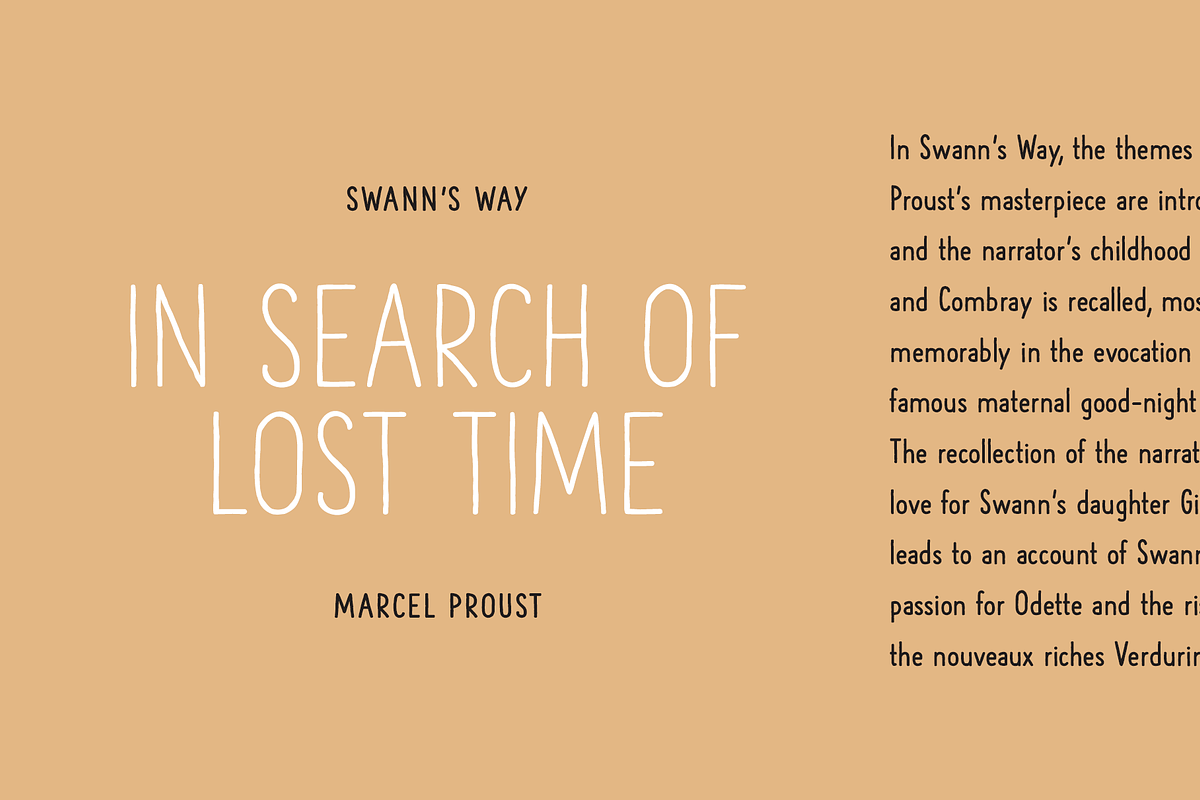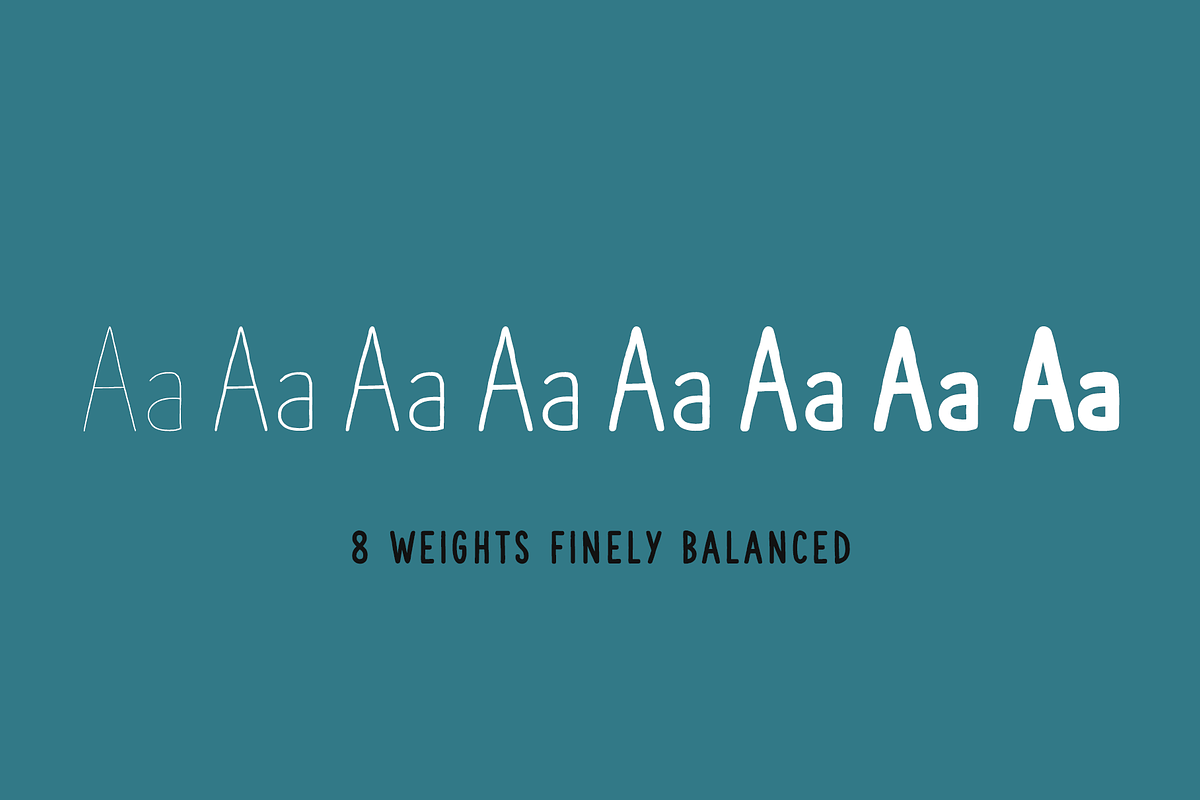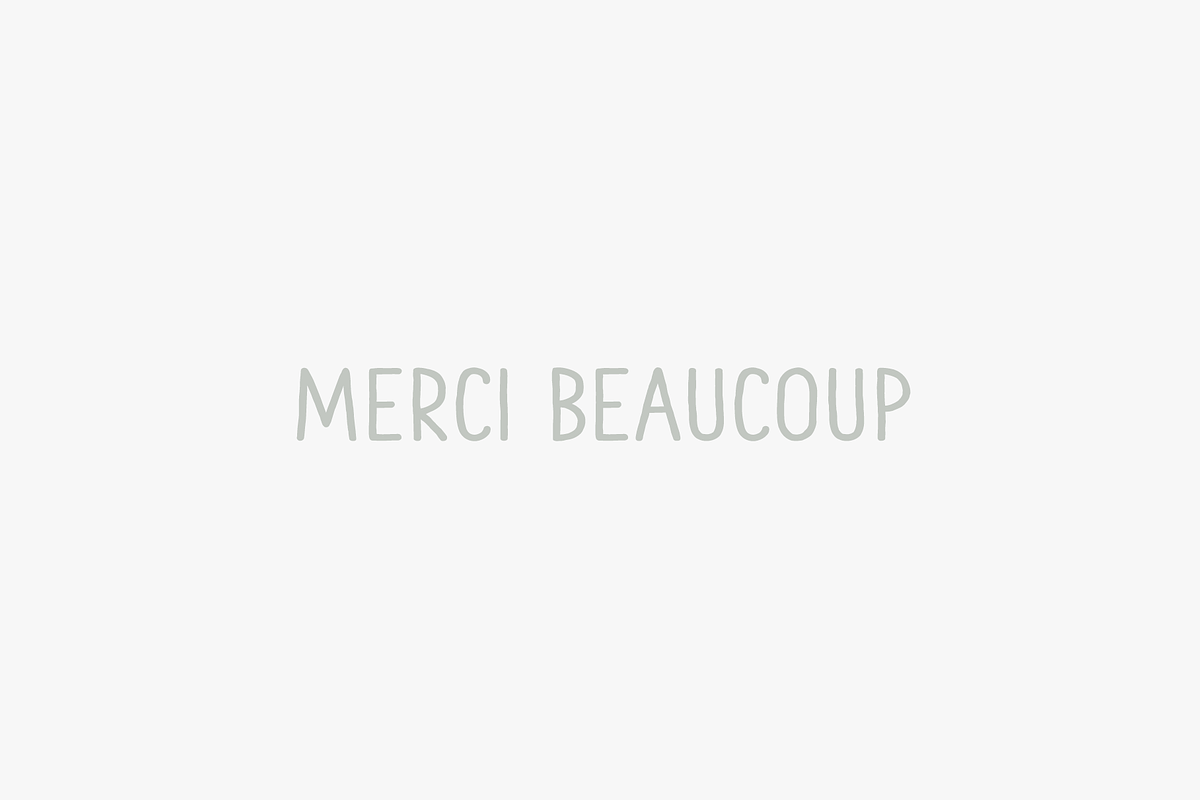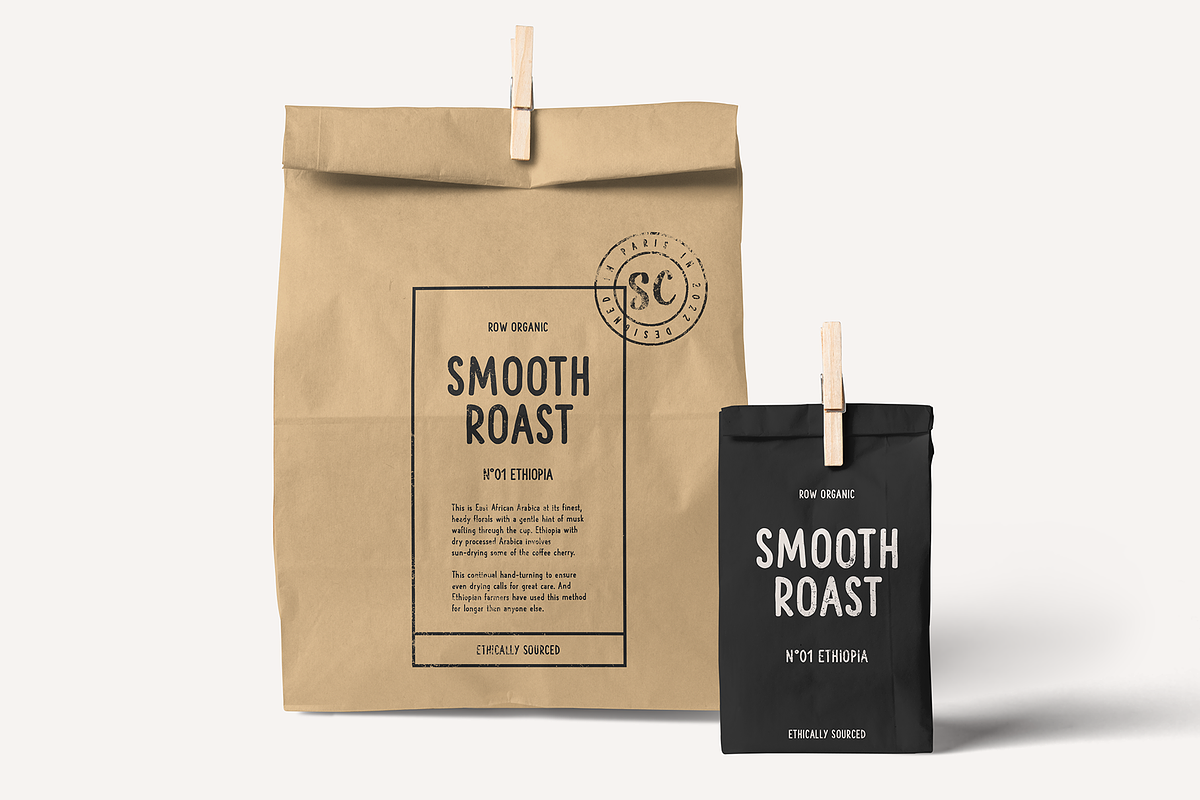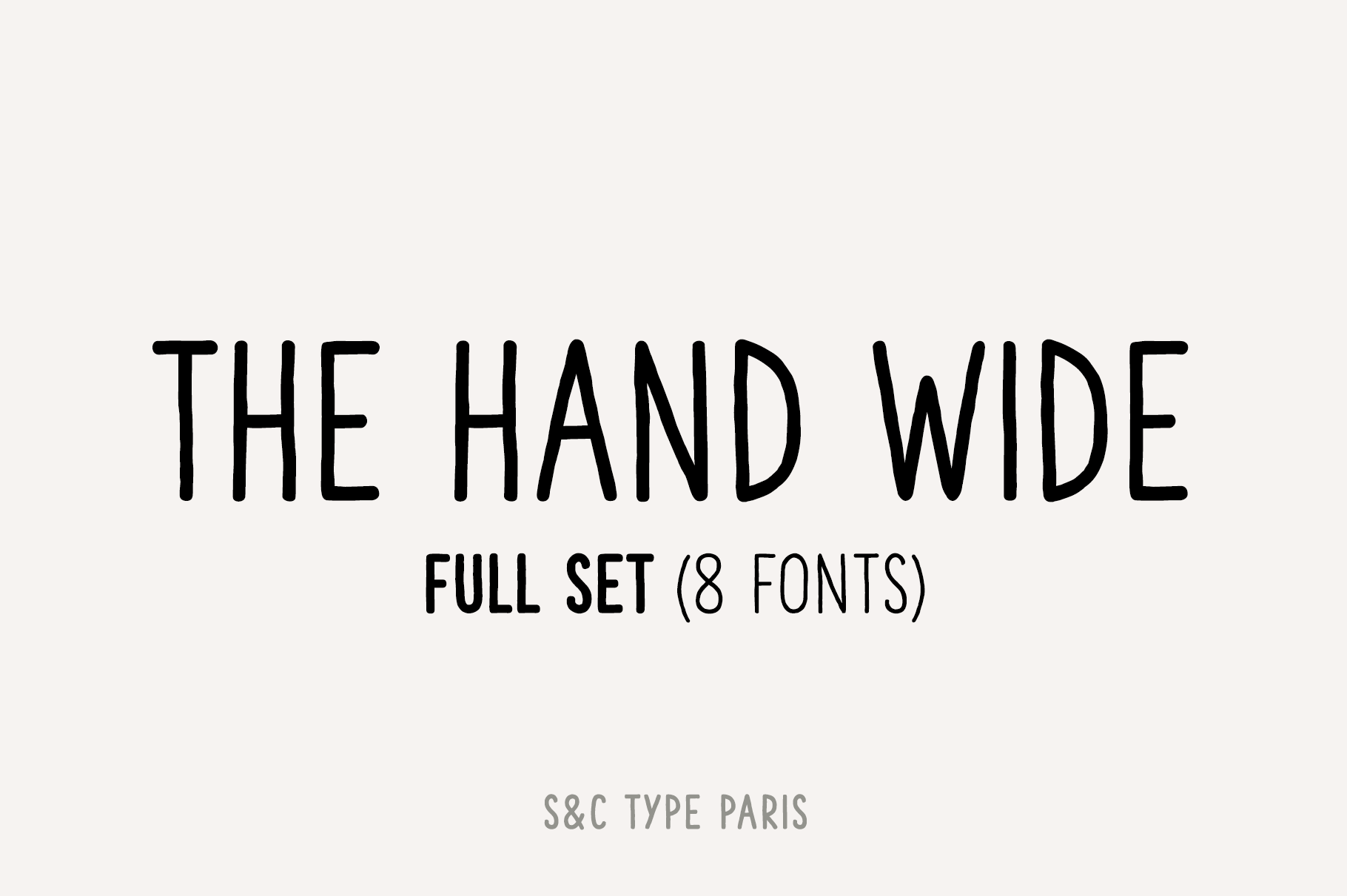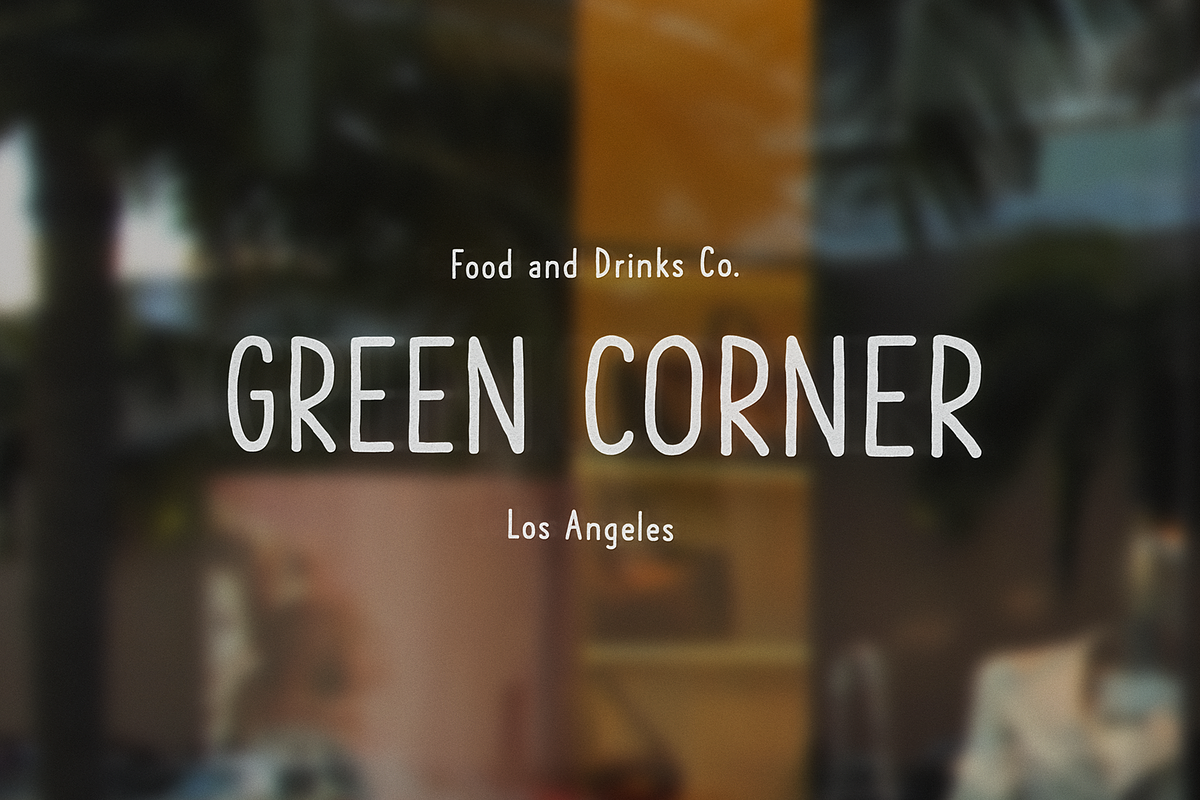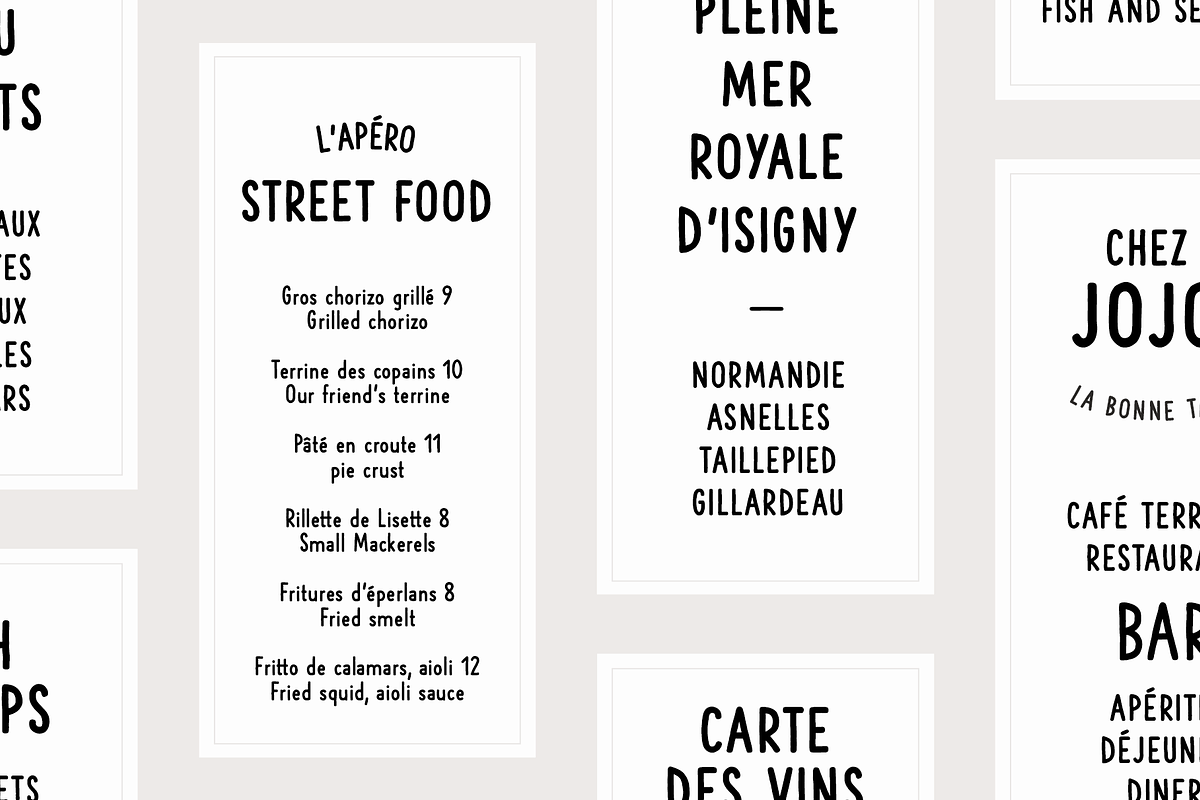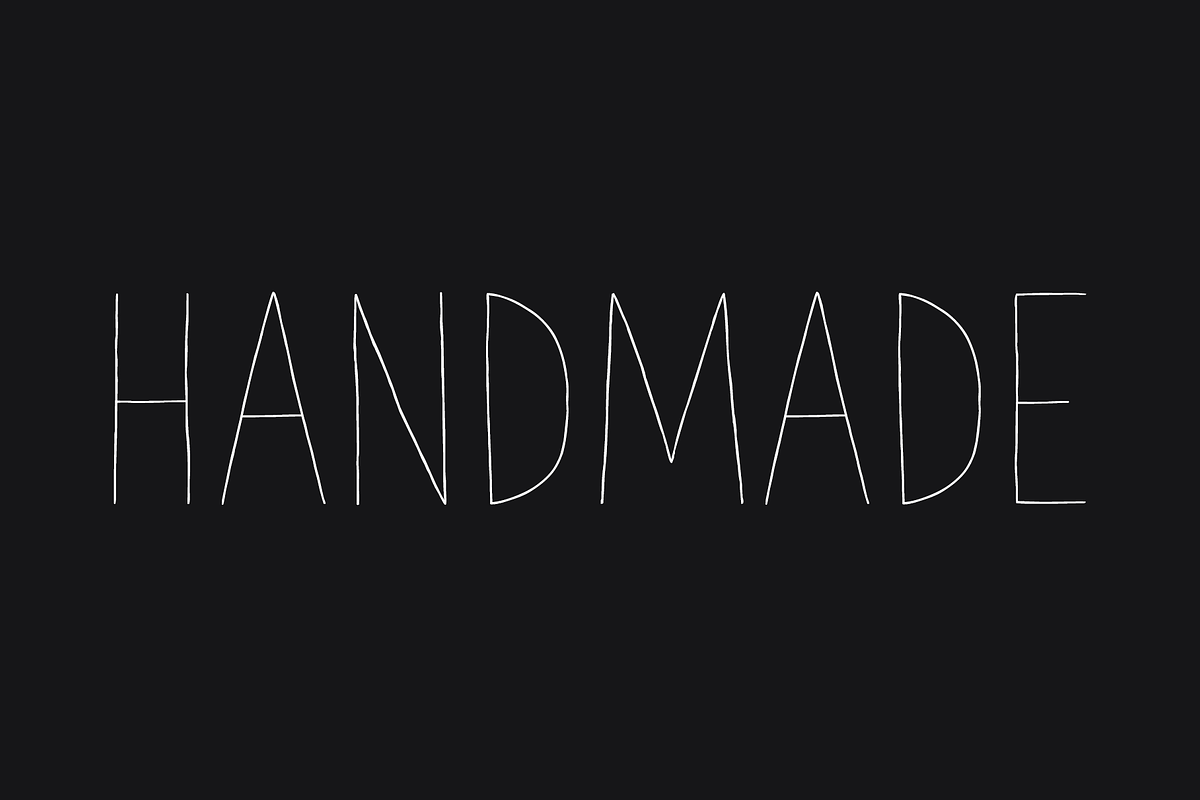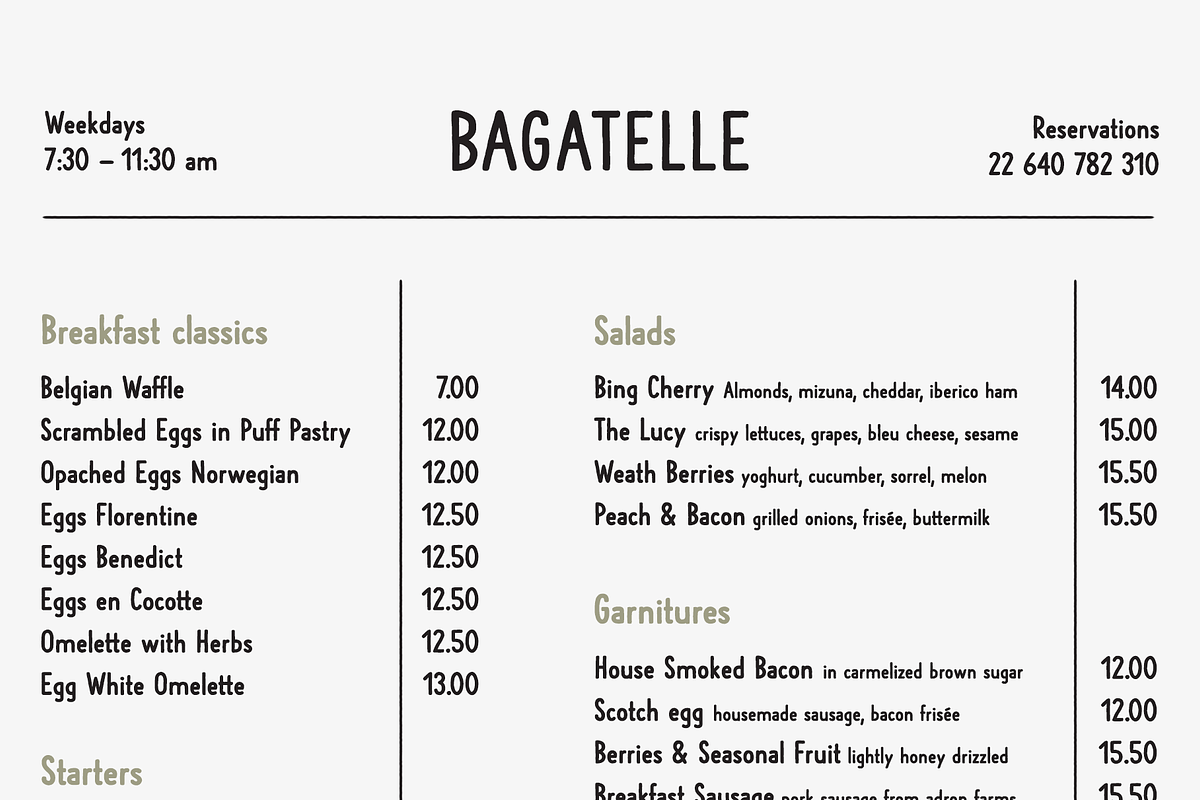
The Hand Wide Font Coll. (8 fonts)
The Hand Wide is a handwritten font designed by Fanny Coulez and Julien Saurin in Paris. We wanted to create the most generic, readable and finely balanced handwritten font, to work well in every kind of design. It's an extended version of our font The Hand.